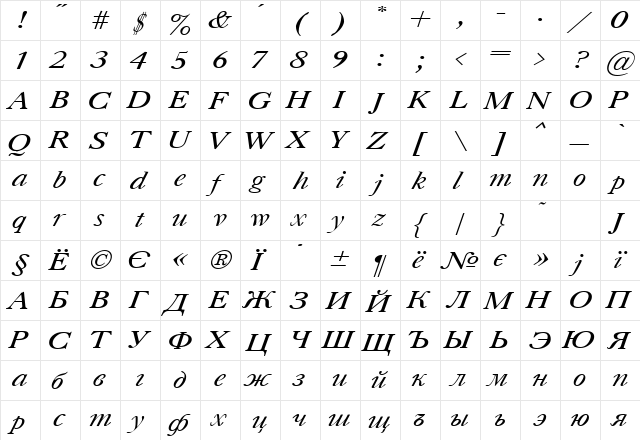
CaslonC Italic
Design Context for CaslonC Typeface
CaslonC is a composed and adaptable typeface that performs quietly and consistently across a wide range of design contexts. The slanted form adds forward momentum and visual energy.